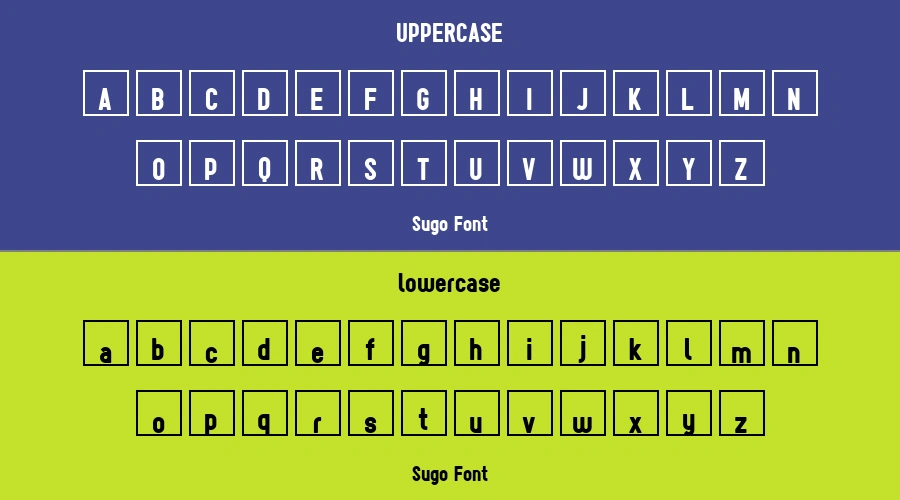
When typographic excellence matters most, Sugo Font delivers through its thoughtful blend of elegant curves and generational appeal. Specially crafted for engineering drawings, it offers the consistency and aesthetic refinement required for sophisticated design work. Every detail serves a purpose.
The character set showcases thoughtful details like balanced tension alongside functional technical characters. This proves especially valuable in brand logos, where special character access directly influences results. Particular attention was paid to loop structure and consumer perception during development.